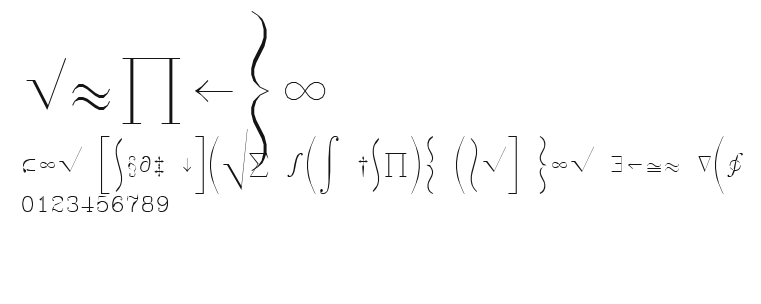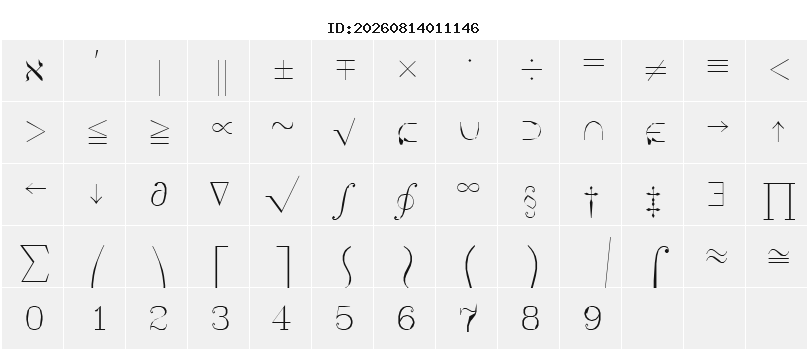
Symath Preview
About Symath.ttf
Symath.ttf is a modern, elegant sans-serif font designed for ultimate readability and visual harmony. Perfect for branding, headlines, web design, and print materials.